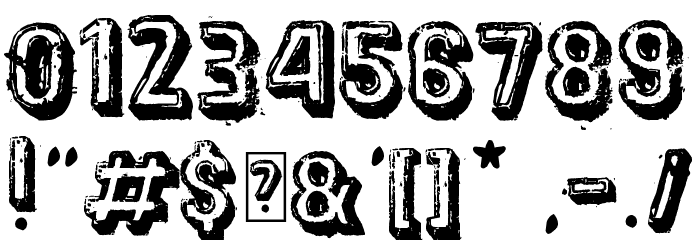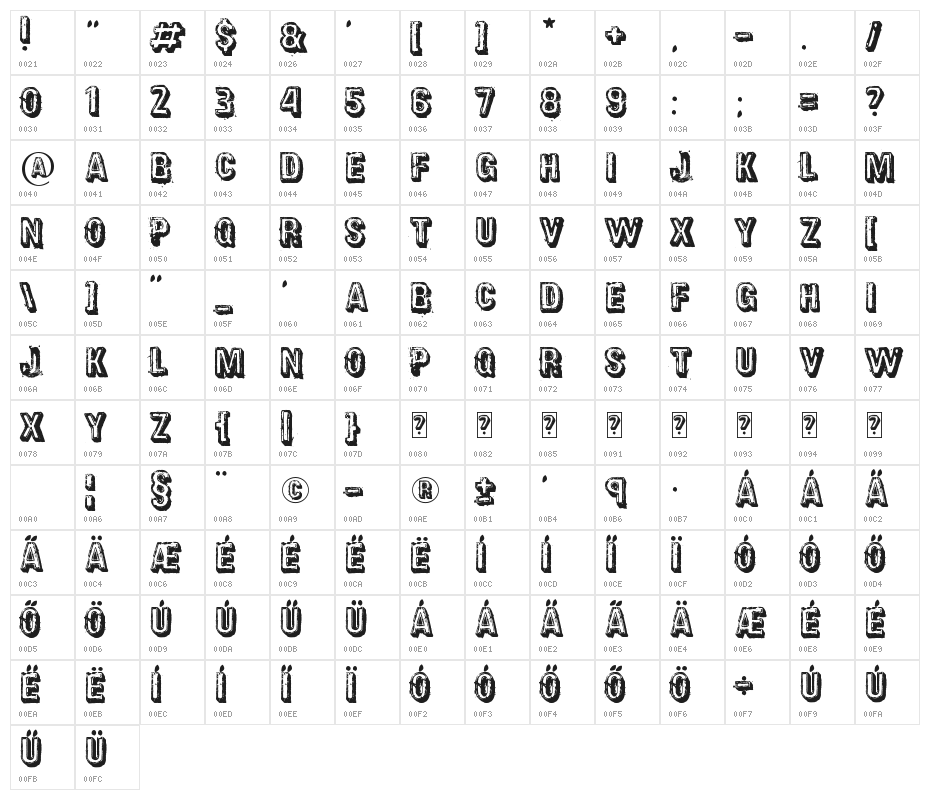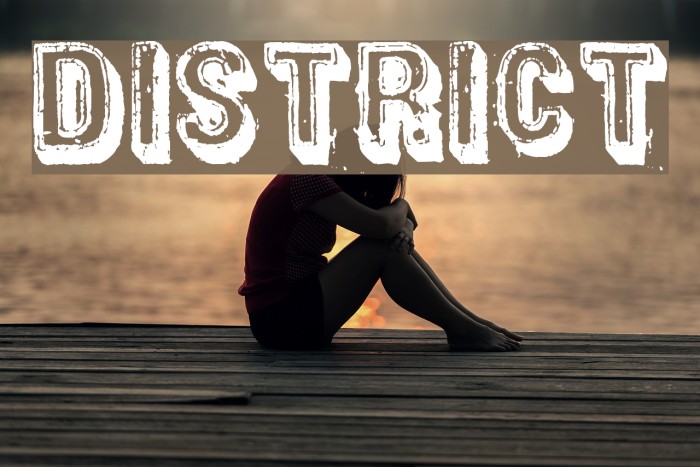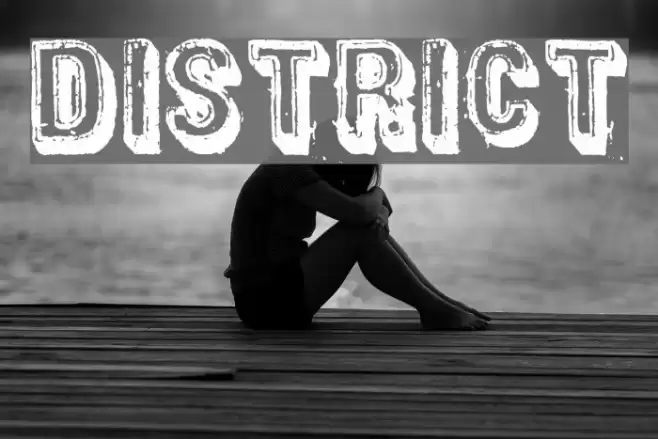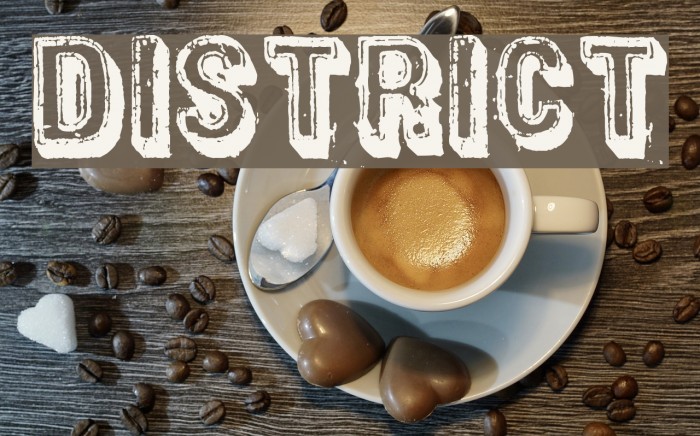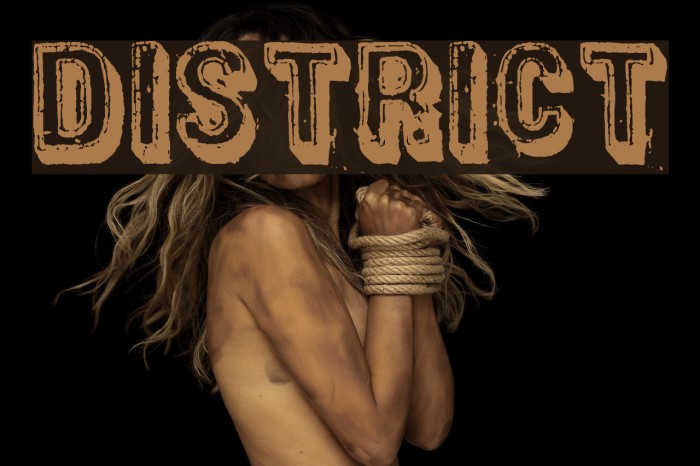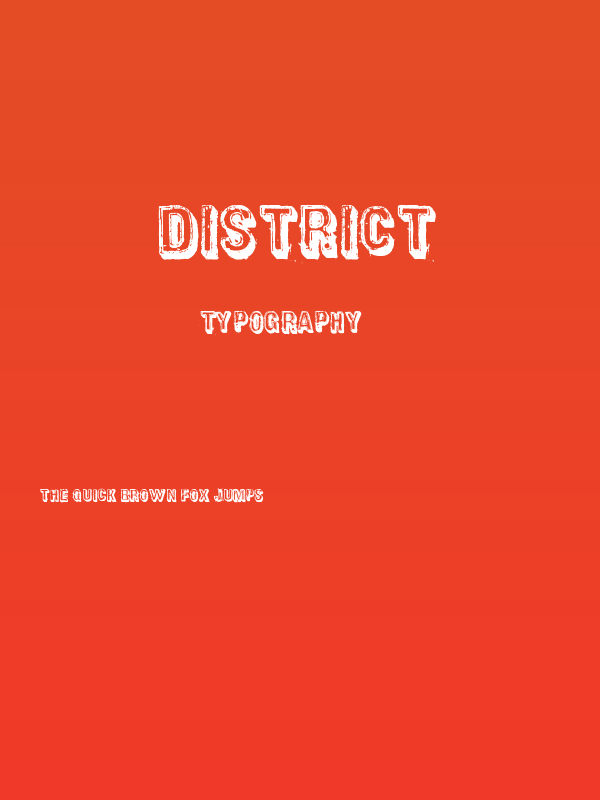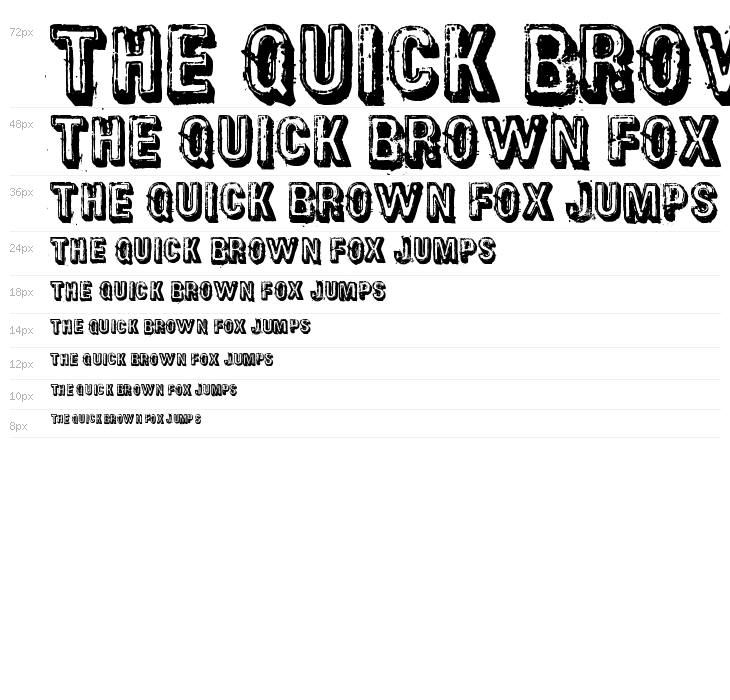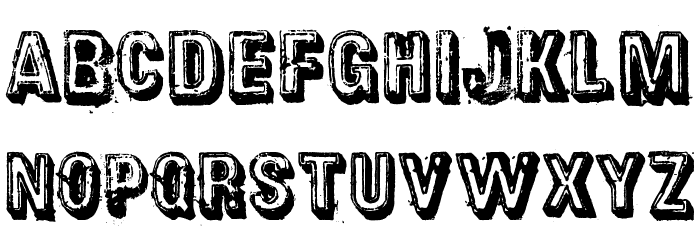
District Font
District Description
This font exhibits a bold, distressed style with a textured, grunge appearance. The characters are uppercase and lowercase letters, numbers, and a selection of special symbols. Each character features a rough, uneven texture that gives it a worn, vintage look. The boldness of the letters is accentuated by the thick strokes and the irregular edges, which create a sense of dynamism and energy. The font's unique style makes it stand out, offering a rugged and edgy aesthetic that is perfect for projects requiring a strong visual impact. The spacing between characters is relatively tight, which helps maintain the intensity of the design.
| Proposed Projects | Ideal for posters, album covers, branding for edgy products, or any design needing a vintage, rugged look. |